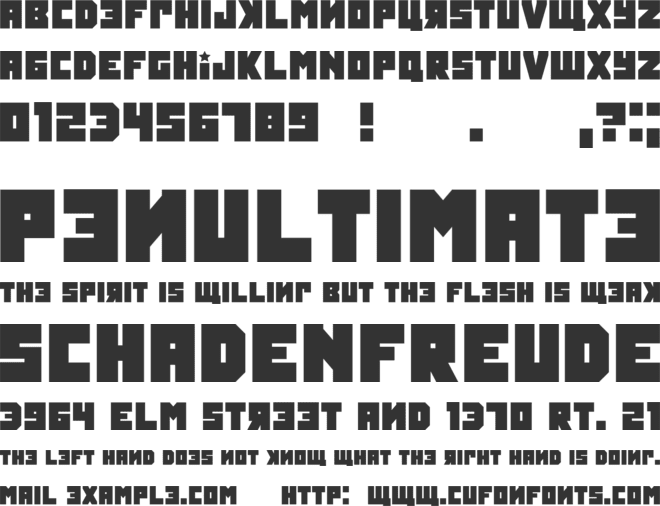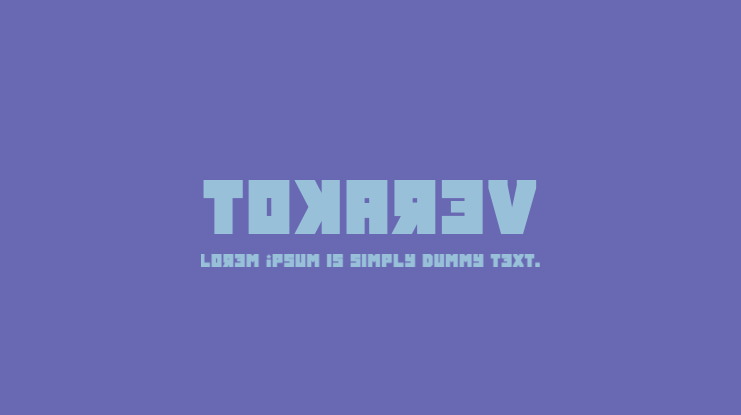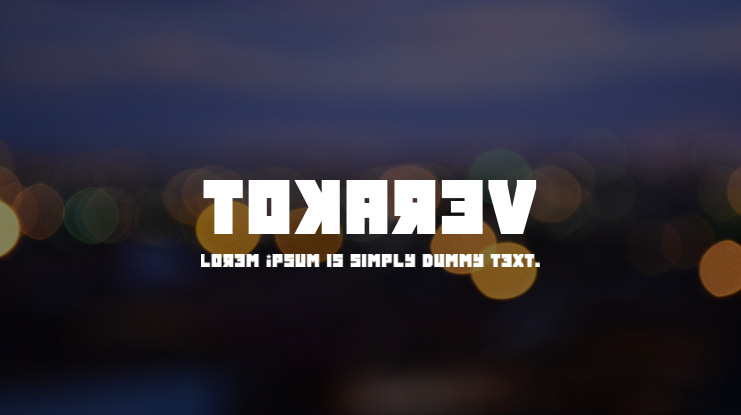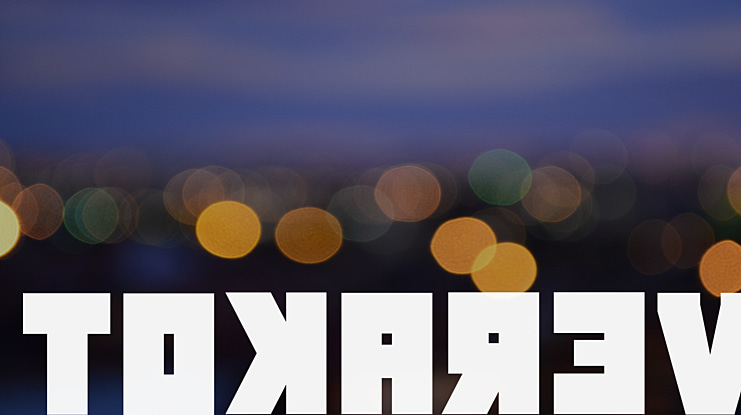
Tokarev Font Family
"Tokarev" is an stunning font inspired by Russian designs. "Tokarev" comes in a Regular, Grunged version, and Italic versions for both. Tokarev is great for posters, banners, t-shirts and much more.Free for personal use. For commercial use, please order a license here: https://www.creativefabrica.com/product/tokarev/ref/144265/